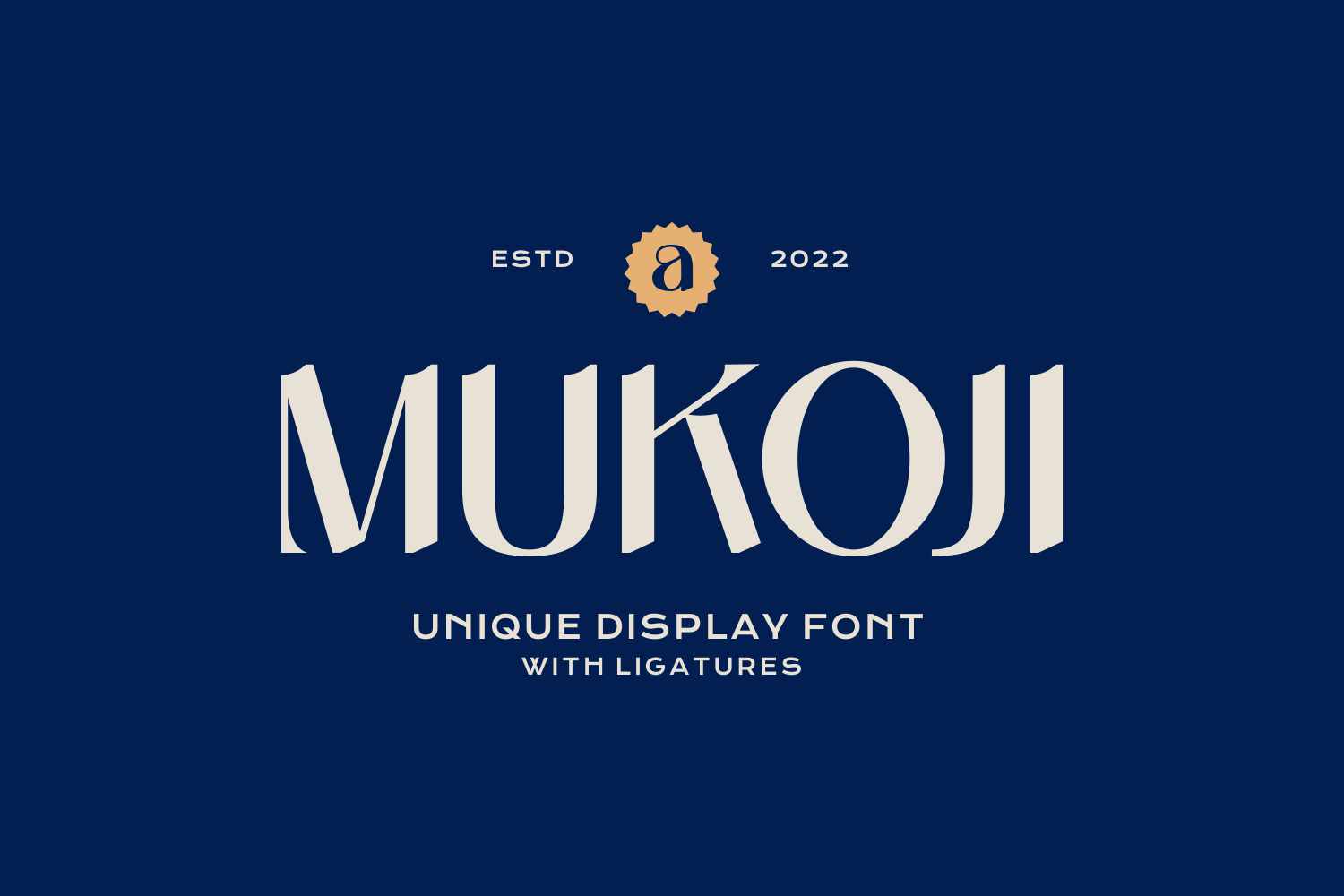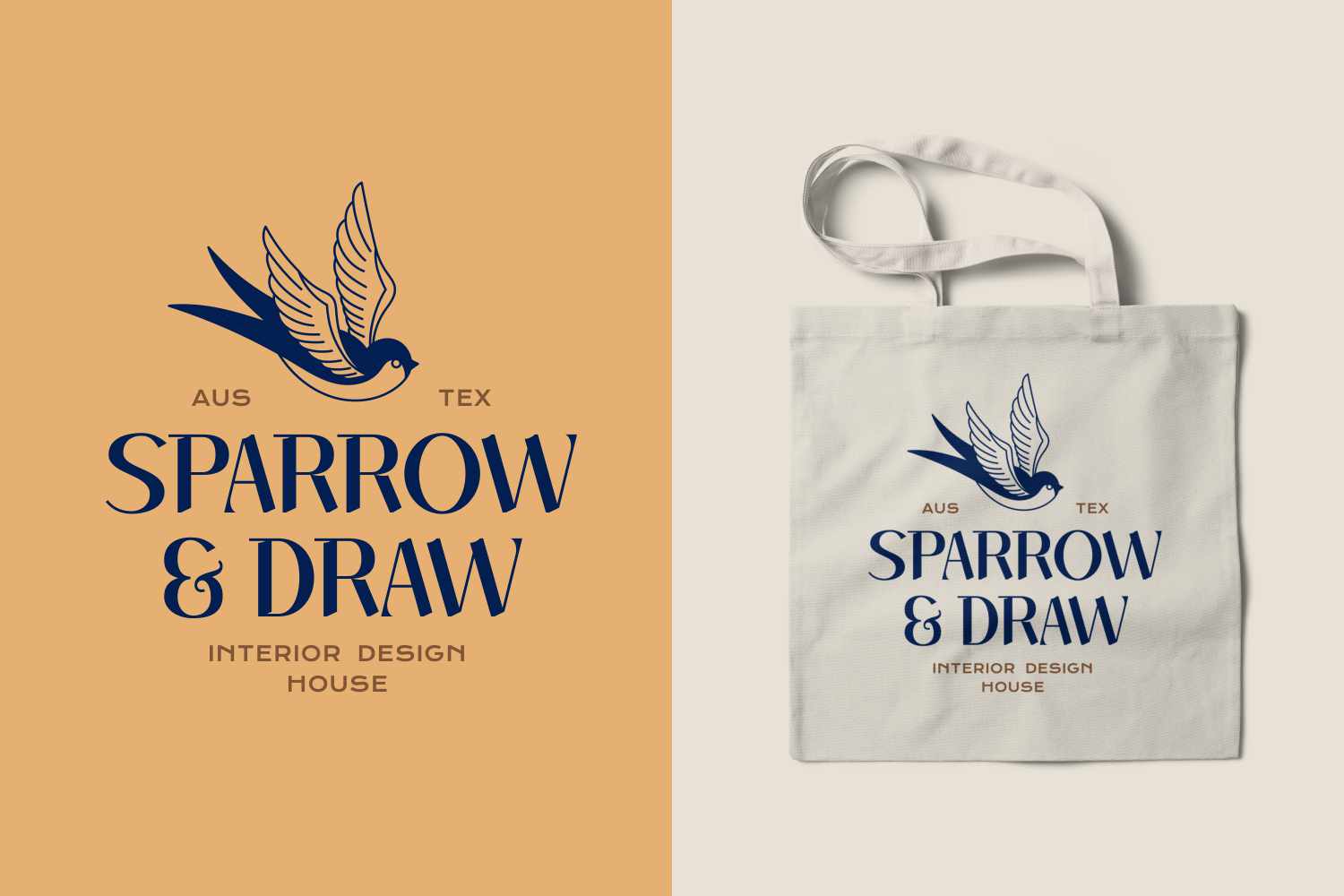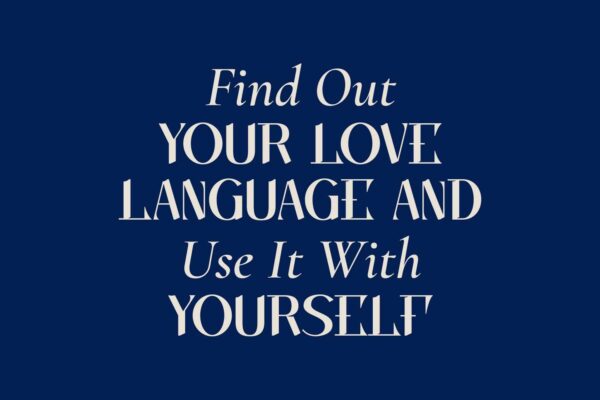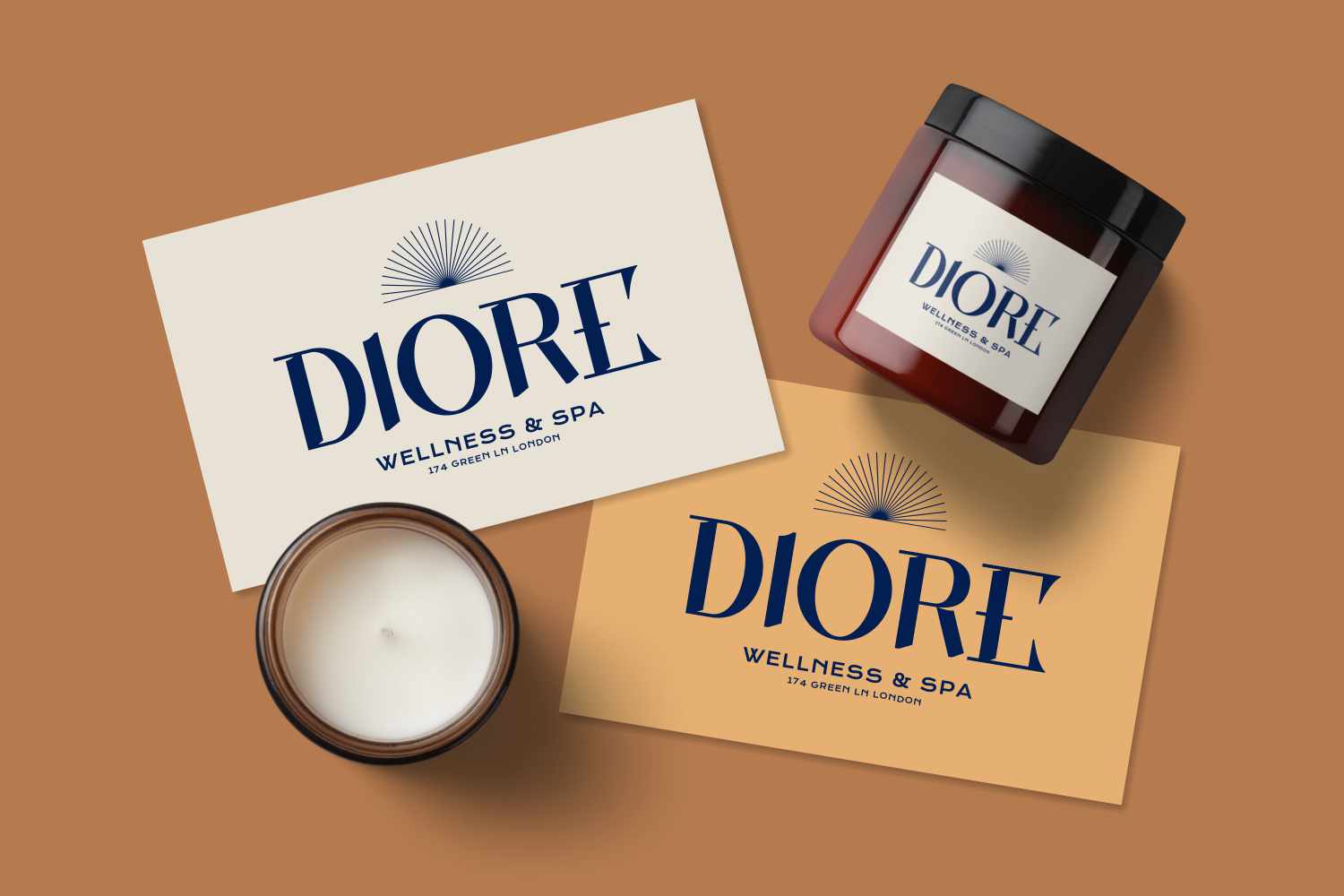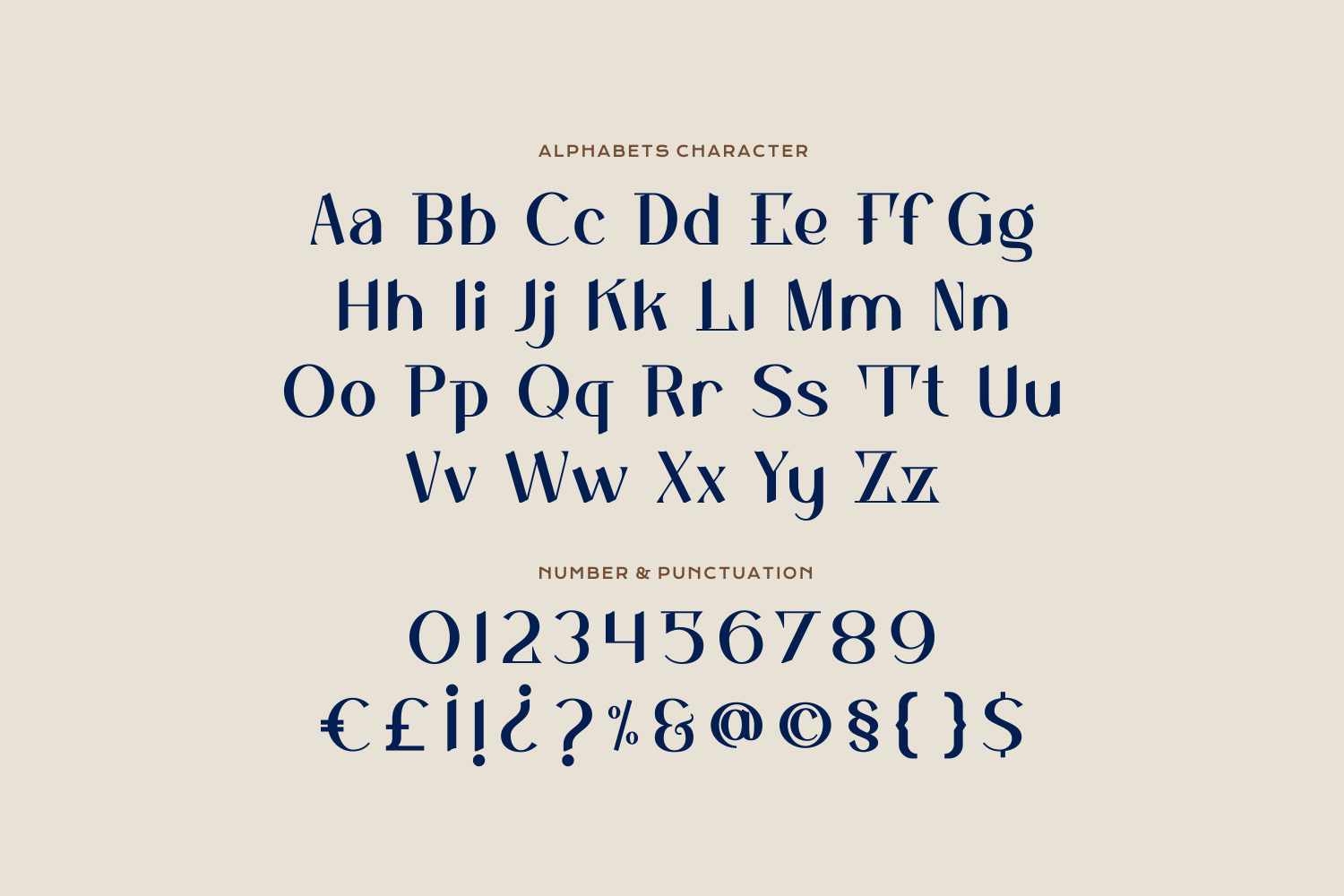
Mukoji
Mukoji is a unique serif display font that blends classic elegance with a modern twist. With its sharp cuts, high contrast strokes, and refined letterforms, Mukoji captures a sophisticated aesthetic that is perfect for creating stylish headlines, fashion branding, editorial layouts, and luxury product packaging. The font’s balanced proportions give it a timeless charm while maintaining a bold and contemporary feel.
Equipped with beautiful ligatures and versatile characters, Mukoji ensures that every design feels polished and distinctive. From logo designs and magazine titles to wedding invitations and wellness branding, this typeface elevates your creative projects with a sense of refinement and confidence. It’s a go-to choice for designers who seek elegance and modernity in perfect harmony.